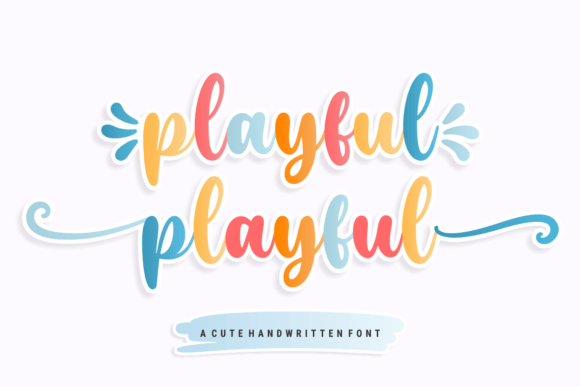
In a world where monotony shackles creativity, where the ordinary stifles the imagination, allow us to introduce Playful Font - a script font that will unleash your inner artist and transform your designs into breathtaking masterpieces. Crafted with meticulous care by jinanstd, Playful Font is a delicate, cute, and stylish handwritten font that dances across the digital canvas with grace and elegance. It's not just a font; it's a gateway to a realm of boundless creative possibilities.
Step into the realm of Playful Font, where words come alive with a touch of whimsy and charm. Its graceful curves mimic the stroke of a calligraphy master, evoking a sense of nostalgia and warmth. From greeting cards that whisper sweet sentiments to headlines that demand attention, Playful Font effortlessly elevates any creation, adding a touch of magic to every word.
Picture a wedding invitation adorned with Playful Font, its elegant characters intertwining like lovers' hands, promising a day filled with joy and enchantment. Or envision a Christmas card adorned with Playful Font, spreading holiday cheer with every stroke. This font is a symphony of creativity, resonating with the spirit of celebration and merriment.
Playful Font is not just a font; it's a muse, a companion on your creative journey. Whether you're designing quotes to inspire, stickers to add a touch of whimsy, or overlays to transform images into works of art, Playful Font is your trusted ally, bringing your vision to life with unparalleled beauty.